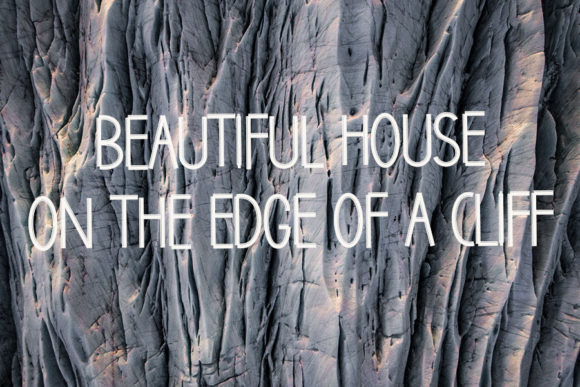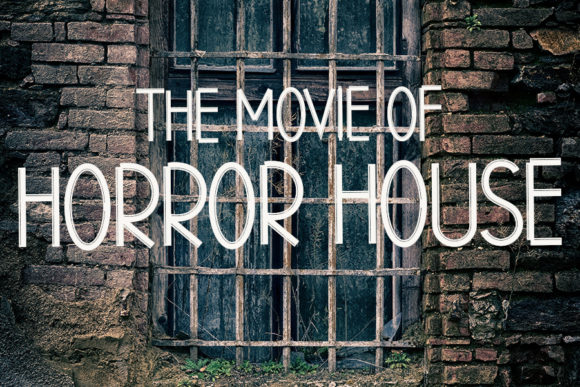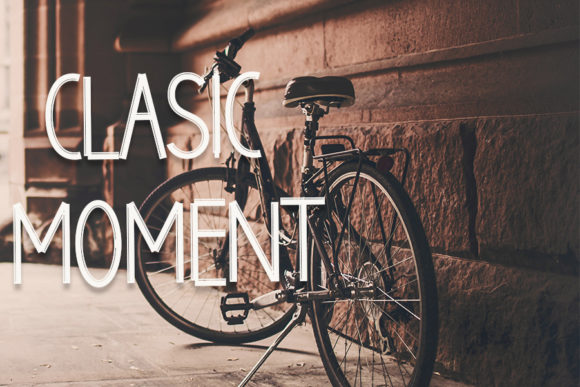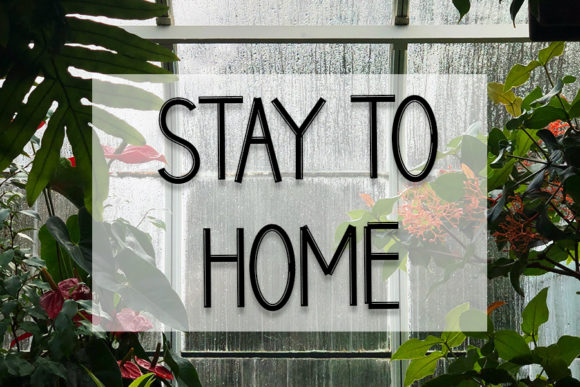
Introduction to Great House Font
Have you ever stared at a blank canvas, eager to bring your creative vision to life, only to be held back by the perfect font? That’s where the Great House Font comes in – a simple yet stunning sans serif font that will elevate any design project. Its clean, thin lines and smooth vibe are perfect for creating a high-quality visual identity that will leave a lasting impression.
Whether you’re working on a freelance project or collaborating with a team, the Great House Font is an invaluable design resource that will help you achieve your creative goals. With its transparent background and versatile design, it’s easy to see why this font is a go-to choice for designers of all levels. And the best part? It’s available for free download, making it an accessible addition to any design project.
Key Features of Great House Font
- High-quality vector graphics with precise lines and smooth curves, making it ideal for creative projects.
- Features a transparent background, providing designers with flexibility when placing the font over different backgrounds.
- Designed with a modern and elegant aesthetic, suitable for a wide range of creative projects, from branding to publishing.
- Unique characteristics include a unique blend of modern and classic elements, making it a standout choice for designers seeking a distinctive look.
Honest Review: Great House Font
As a designer, I’m always on the lookout for high-quality fonts that can elevate my creative projects. Recently, I stumbled upon the Great House Font, and I’m excited to share my honest review with you.
- High-quality design with crisp and clean lines
- Transparent background makes it easy to use as a design resource
- Perfect for creative projects that require a touch of elegance
- ⚠️ Limited character set, which may not be suitable for longer texts
- ⚠️ Not as versatile as some other fonts, may not work well in certain design contexts
Overall, I’m impressed with the Great House Font. While it may have some limitations, its high-quality design and transparent background make it a valuable addition to any designer’s toolkit. I’d definitely recommend it for creative projects that require a touch of elegance and sophistication.
The Great House Font is a high-quality design resource perfect for creative projects that require a unique and stylish touch. This versatile font can be used in various applications, including digital graphics and print materials.
Transparent Background
The Great House Font features a transparent background, making it easy to layer over other design elements. This is especially useful for creating complex graphics and designs.
The Great House Font is ideal for:
- Logo designs
- Poster and flyer designs
- Brochure and catalog designs
- Digital graphics and animations
To get the most out of the Great House Font, experiment with different font sizes, colors, and layering techniques. You can also combine it with other design elements to create a unique and eye-catching design.